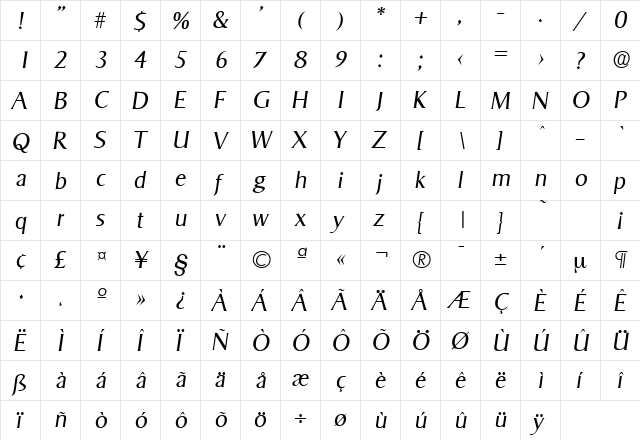
Sigvar-Serial-Light RegularItalic Font Preview
Design Context for Sigvar-Serial-Light Typeface
Sigvar-Serial-Light takes a measured approach to typography — its balanced proportions and neutral character make it a reliable workhorse for both digital and print work. The dynamic lean of this cut emphasises speed and emphasis in any layout. The delicate stroke weight brings airiness and refinement to layouts.
Pro Tip: Use Sigvar-Serial-Light for emphasis, pull quotes, and subheadings where its slanted energy can add rhythm to the layout.